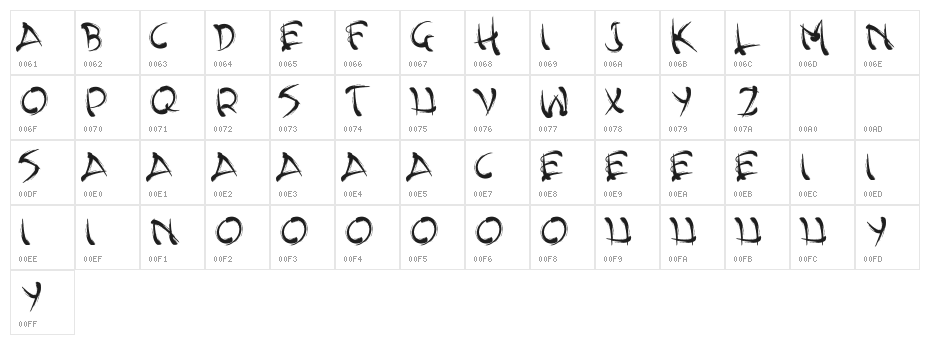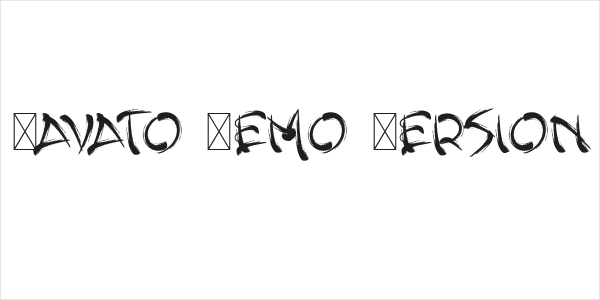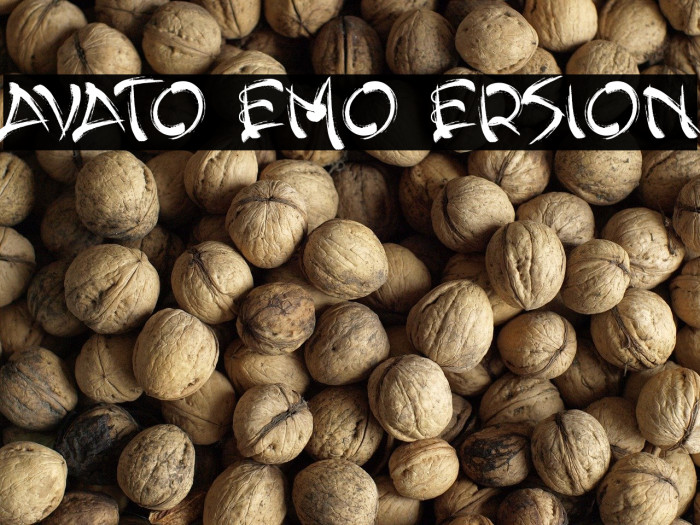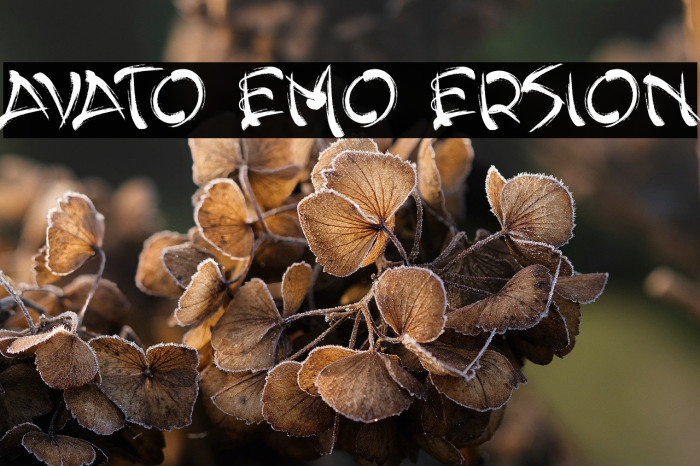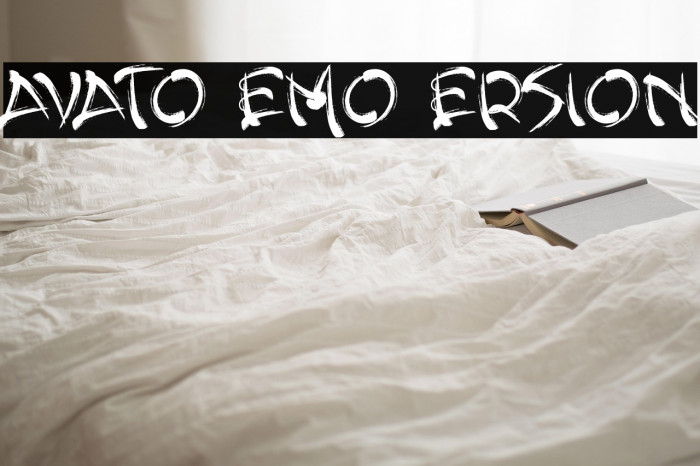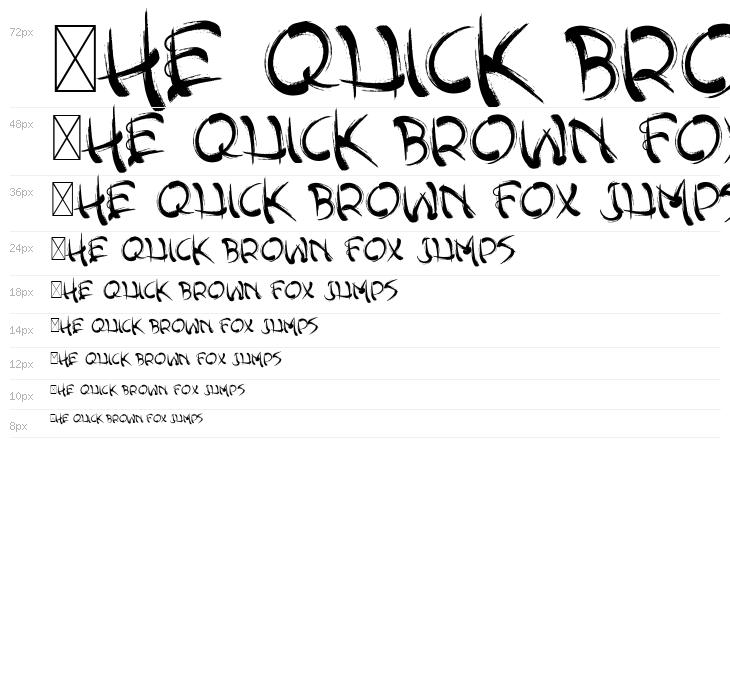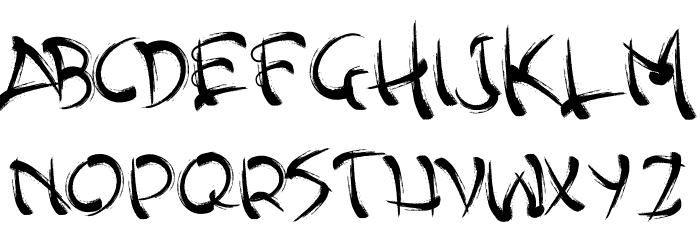
Yavato Demo Version Font
Yavato Demo Version Description
This font features a bold and expressive style, characterized by its brush-like strokes and dynamic movement. The letters have a hand-painted appearance, with varying thicknesses that add a sense of energy and spontaneity. The uppercase letters are particularly striking, with sharp angles and fluid curves that create a sense of motion. The overall design is artistic and edgy, making it suitable for projects that require a strong visual impact. The font's unique style is ideal for creative and unconventional designs, offering a modern twist on traditional calligraphy.
| Proposed Projects | Ideal for posters, album covers, branding, and any project needing an artistic flair. |